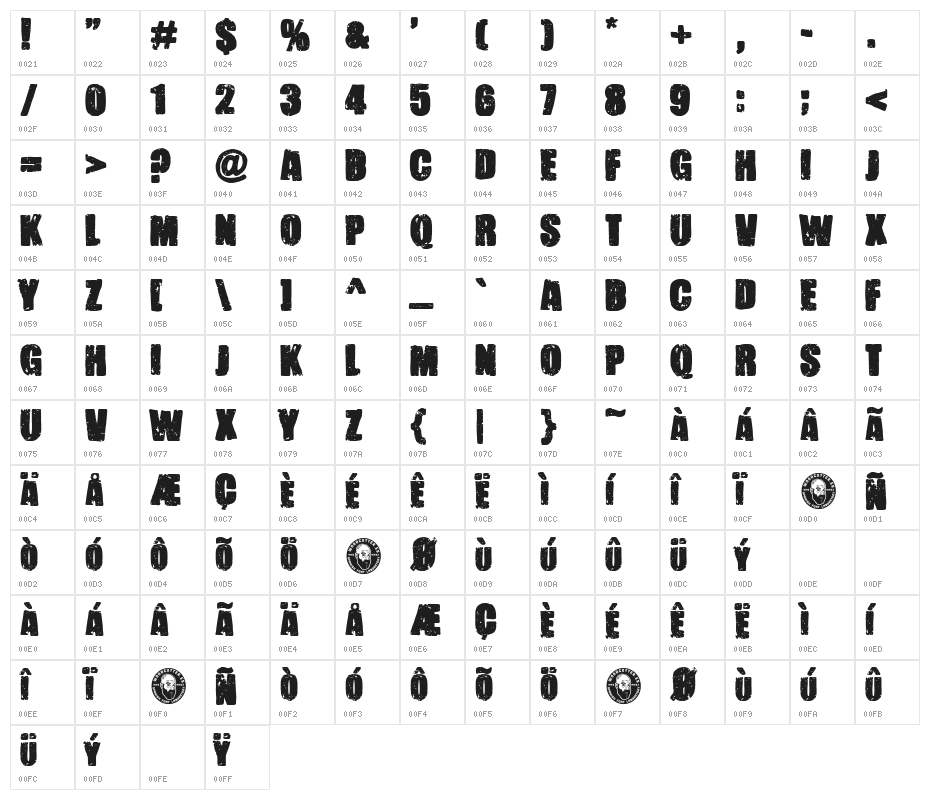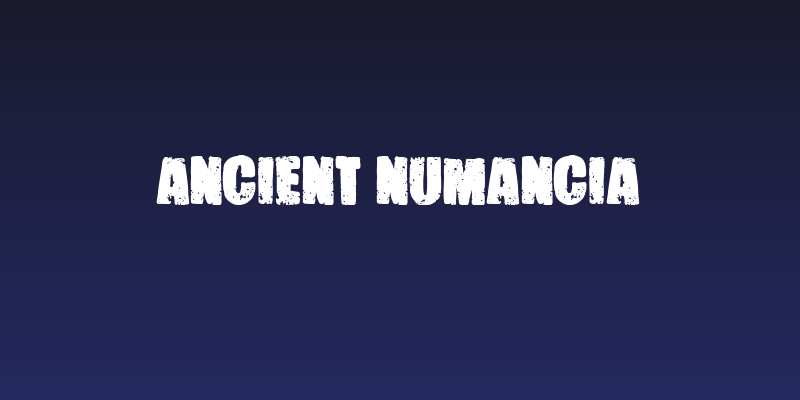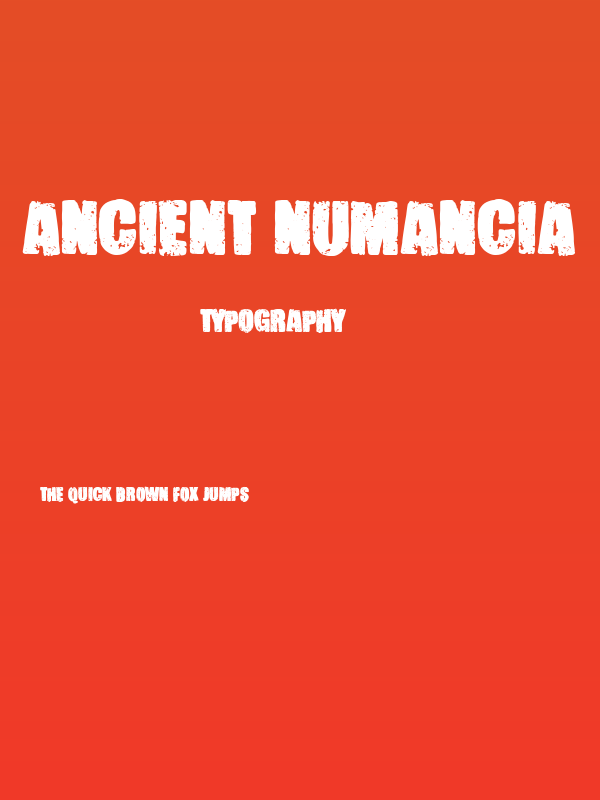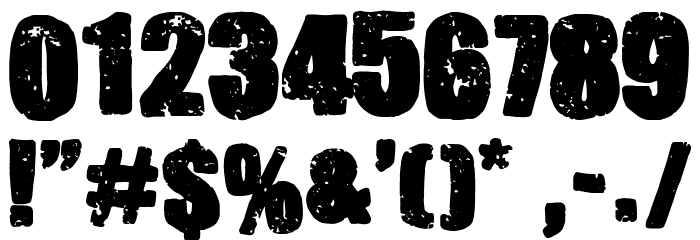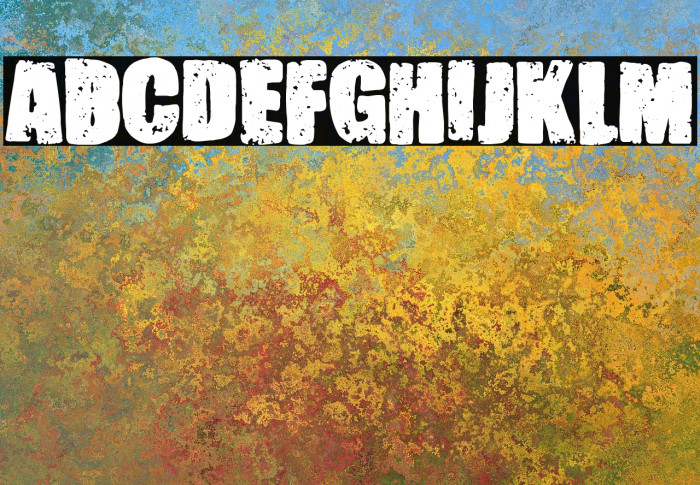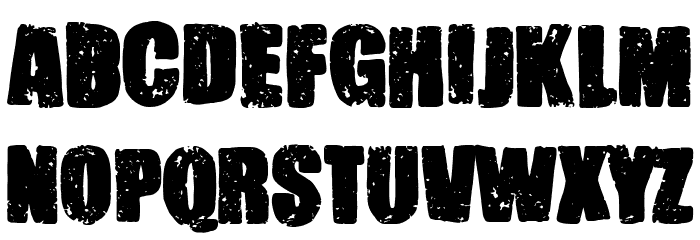
Ancient Numancia Font
Ancient Numancia Description
This font features a bold, distressed style that evokes a sense of ruggedness and antiquity. The characters are heavily textured, giving them a weathered appearance reminiscent of ancient stone carvings or aged wood. Each letter is unique, with irregular edges and a rough surface that adds to the overall rustic charm. The uppercase letters dominate the design, while the numerals and special characters maintain the same distressed aesthetic. This font is perfect for projects that require a strong, impactful visual presence with a touch of historical or vintage flair.
| Proposed Projects | Ideal for historical-themed posters, vintage branding, rustic signage, and adventurous book covers. |